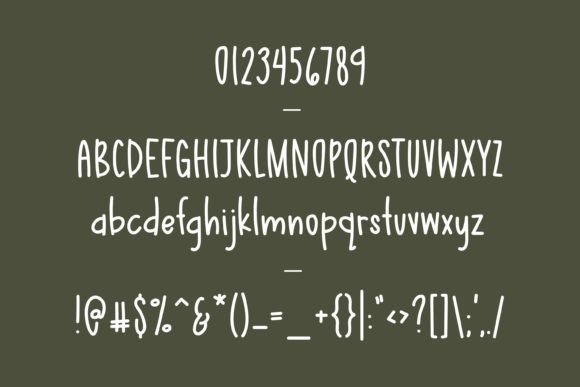
Introduction to Fa La La Font
The Fa La La font is a playful, hand-drawn typeface with a whimsical, festive charm.
Its tall, slender letters give it an airy and cheerful personality, making it perfect for holiday projects, invitations, or anything that calls for a lighthearted, crafty touch .
Key Features of Fa La La Font